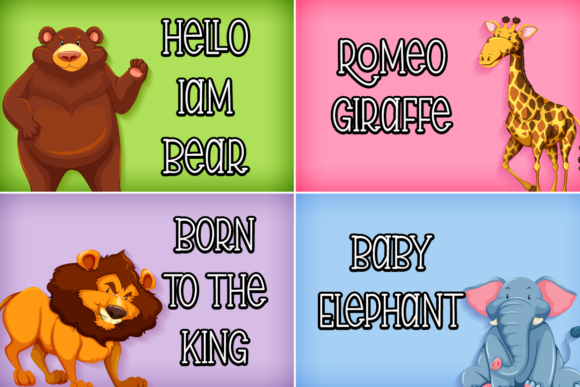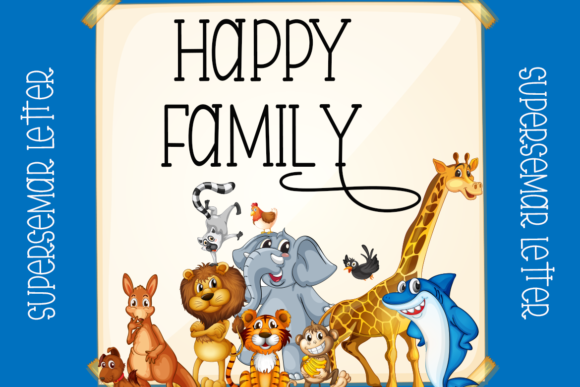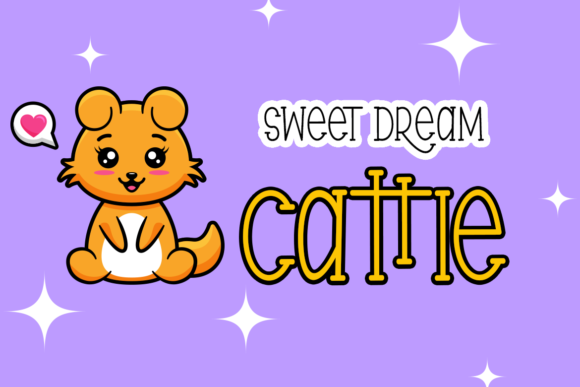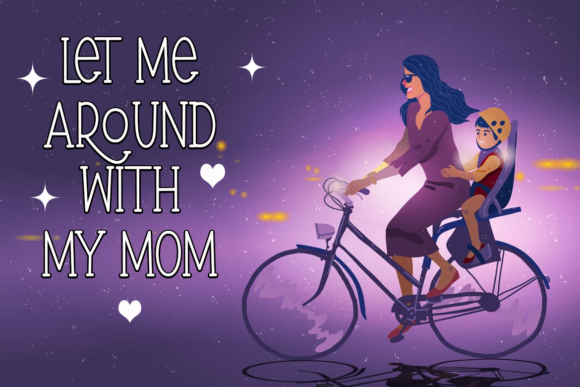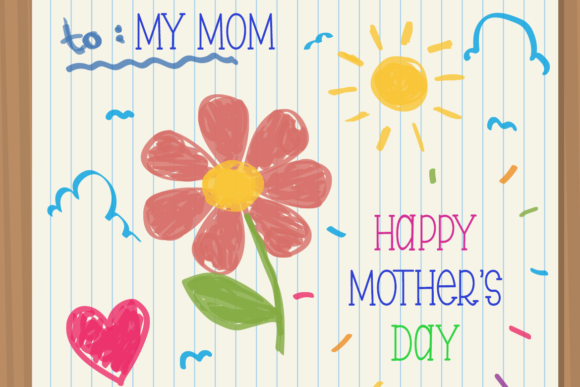
Introduction to Pretty Panda Font
Have you ever found yourself scrolling through a design platform, and suddenly, a font catches your eye? For me, it was the moment I stumbled upon the Pretty Panda Font. Its adorable design and playful feel immediately sparked an idea for a children’s book illustration project I had been putting off. The font’s whimsical charm transported me to a world of colorful creativity, and I knew I had to dive in.
| 👤 Author | Supersemar Letter |
As designers, we’re always on the lookout for the perfect design resource to elevate our creative projects. The Pretty Panda Font is a valuable addition to any designer’s toolkit, especially when it comes to children-themed designs. Its high-quality, transparent background makes it easy to integrate into any project, and its free download availability means you can start using it right away.
Key Features of Pretty Panda Font
- High-quality design resource ideal for creative projects, offering a unique and playful aesthetic.
- Unique characteristics include whimsical illustrations and bold, vibrant colors, making it perfect for adding a touch of personality to your design.
- Perfect for designers and artists looking for a fun and creative design resource to elevate their projects and bring a touch of playfulness to their work.
Honest Review: Pretty Panda Font
I recently stumbled upon the Pretty Panda Font while searching for a free download to use in my creative project. As a designer, I appreciate high-quality resources that can elevate my work, and I’m happy to share my honest review.
- ✨ The design is modern and stylish, perfect for adding a touch of sophistication to my projects.
- ⚠️ The font lacks a comprehensive character set, which may limit its use in certain creative projects.
Overall, I’m impressed with the Pretty Panda Font’s design and versatility. While it may not be perfect, it’s a great resource for designers looking for a high-quality, free download. I’d definitely consider using it in future creative projects.
Tips for Getting the Most Out of Pretty Panda Font
Use the Pretty Panda Font with a transparent background to create a visually appealing design. Experiment with different font sizes and colors to add depth and interest to your design.
The Pretty Panda Font is ideal for creative projects such as social media graphics, brochures, and flyers. Its high-quality design makes it perfect for business cards, invitations, and other formal documents.